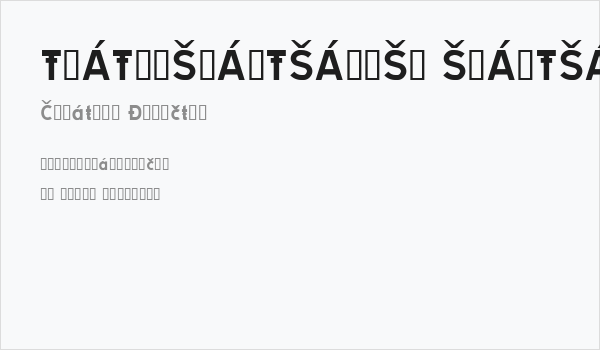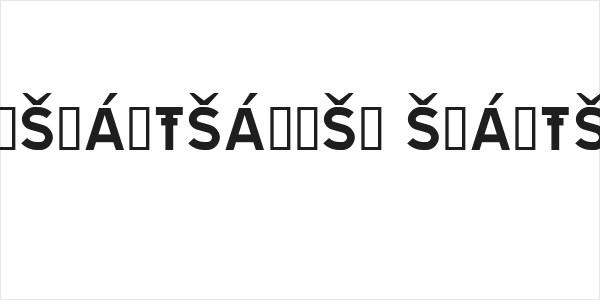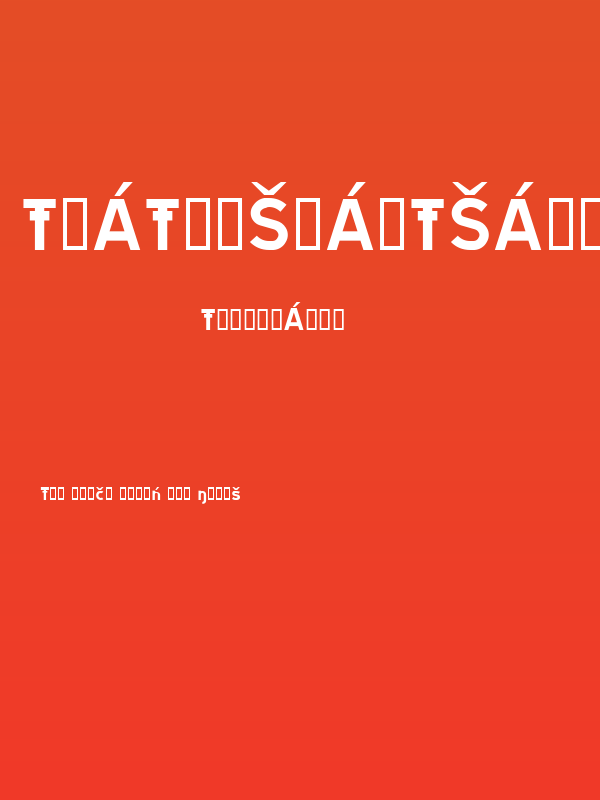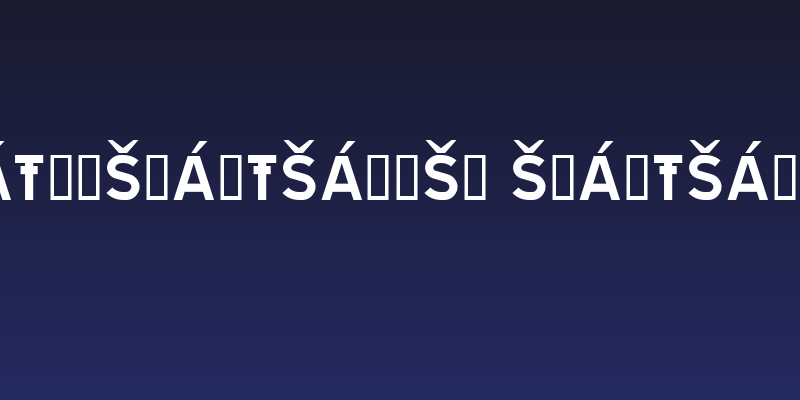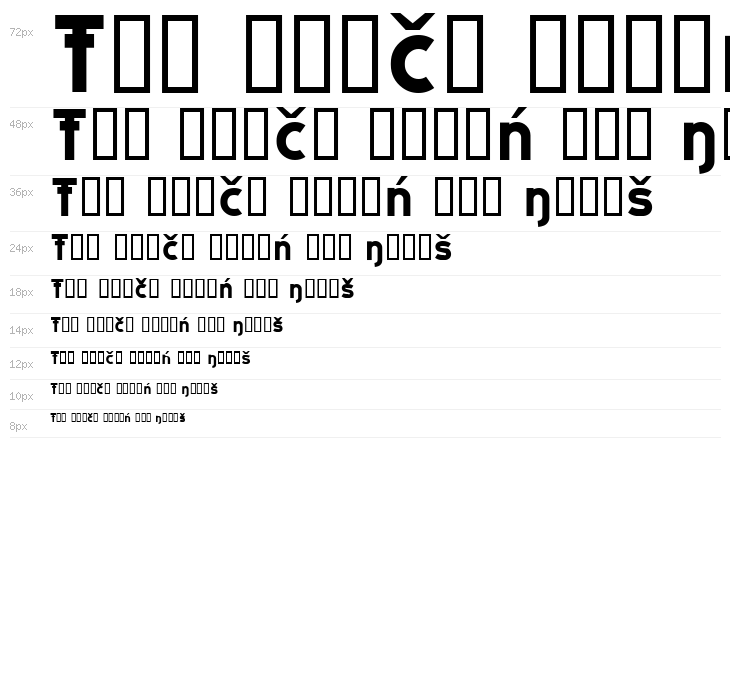
TRATEXSVARTSAMISK Font
TRATEXSVARTSAMISK Description
This font features a bold and robust design with strong geometric shapes. The characters are well-defined with a consistent stroke width, giving it a modern and clean appearance. The uppercase and lowercase letters maintain a uniform style, with slight variations in the curvature and angles, adding a touch of uniqueness. The numerals are clear and easy to read, matching the overall boldness of the font. Special characters are included, maintaining the same design ethos, ensuring versatility across different uses. The font's design is straightforward yet impactful, making it suitable for various applications.